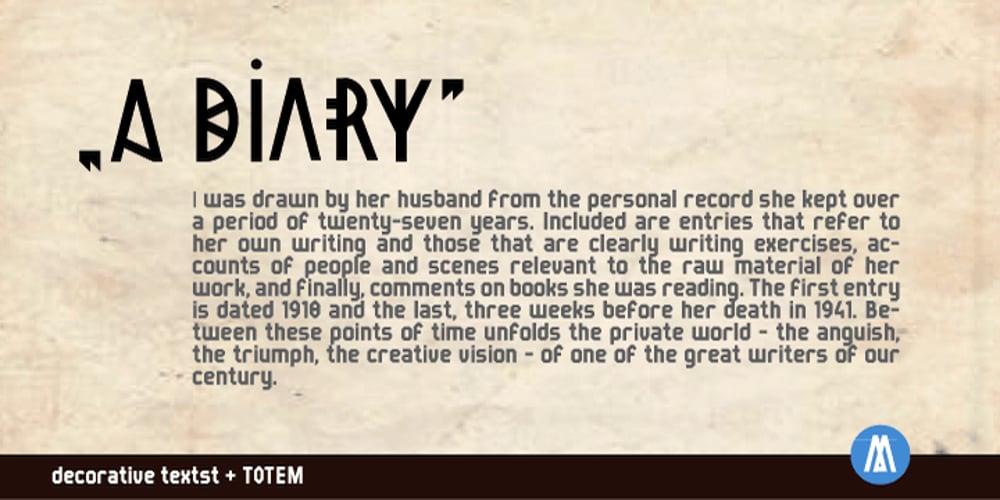
Makata
Makata font
Makata Font Family was designed by published by Cuda Wianki. Makata contains 2 styles and family package options. MAKATA is highly modern and trendy. Use it in decorative headlines, logos, posters, covers and wherever you want use a stylish yet geometric letters. As a regular text font we strongly recommend to you our TOTEM. Thanks to alternate characters (each letter has 3 various versions) typing MAKATA is like painting. Words are very decorative and look like fashionable pattern. Of course there is a nice set of ornaments too to meet the needs of even the most demanding design.